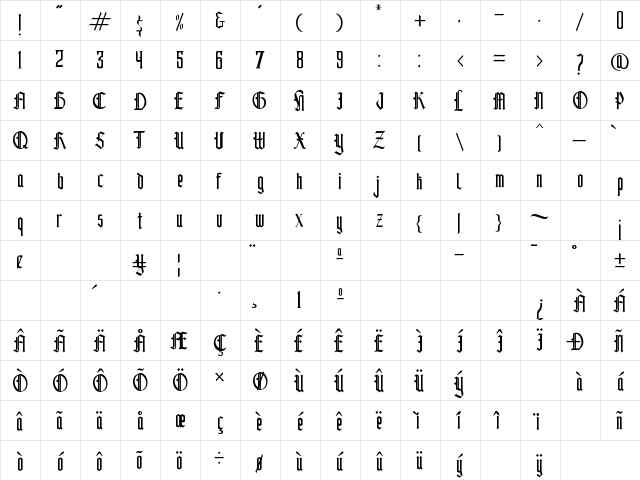
Deathmatch Regular
| Foundry | KongFont |
| Designer | KongFont |
Design Context for Deathmatch Typeface
Deathmatch carries an unsettling edge — its distorted letterforms are built to unsettle, perfectly suited to horror, Halloween, and dark creative work.
Ideal for Halloween projects, horror film titles, haunted house signage, and dark editorial design.
Font Pairing: Pair with a clean neutral sans-serif for body copy to let Deathmatch's character lead without overwhelming the composition.
Pro Tip: Deathmatch works best as a headline or focal element. Pair it against plain, neutral body text to amplify the contrast.